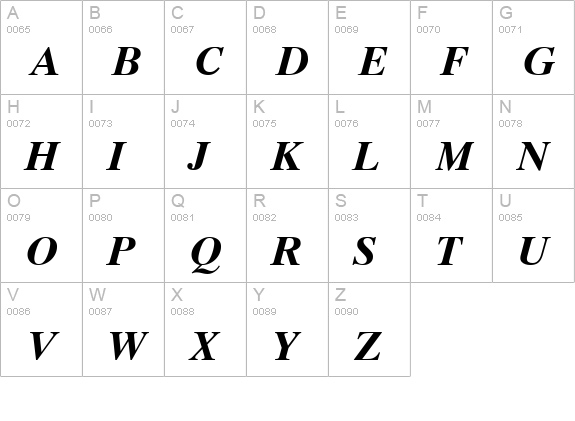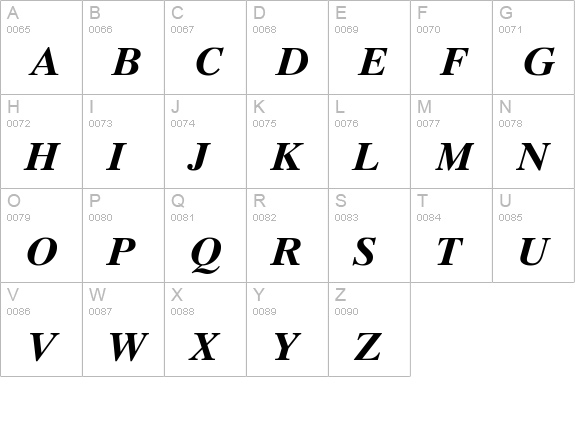
Greco Ten OldStyle SSi Bold is a strong, high-contrast variant in the Greco typeface family \xE2\x80\x94 well suited to headlines, attention-grabbing titles, and strong calls-to-action.
Greco Ten OldStyle SSi Bold font is a classic and sophisticated typeface that brings a touch of elegance to any design project. With its timeless appeal and refined aesthetics, this font exudes a sense of tradition and craftsmanship. The bold weight adds a strong and impactful presence, making it perfect for headlines, titles, and other prominent text elements. What sets Greco Ten OldStyle SSi Bold font apart is not just its design, but also the fact that it is available for free download at FontsMarket.com. This means that you can access this premium-quality font without any cost, making it a valuable addition to your font library. Whether you're working on branding, editorial design, or any other creative project, Greco Ten OldStyle SSi Bold font is sure to elevate your work with its timeless charm and versatility.